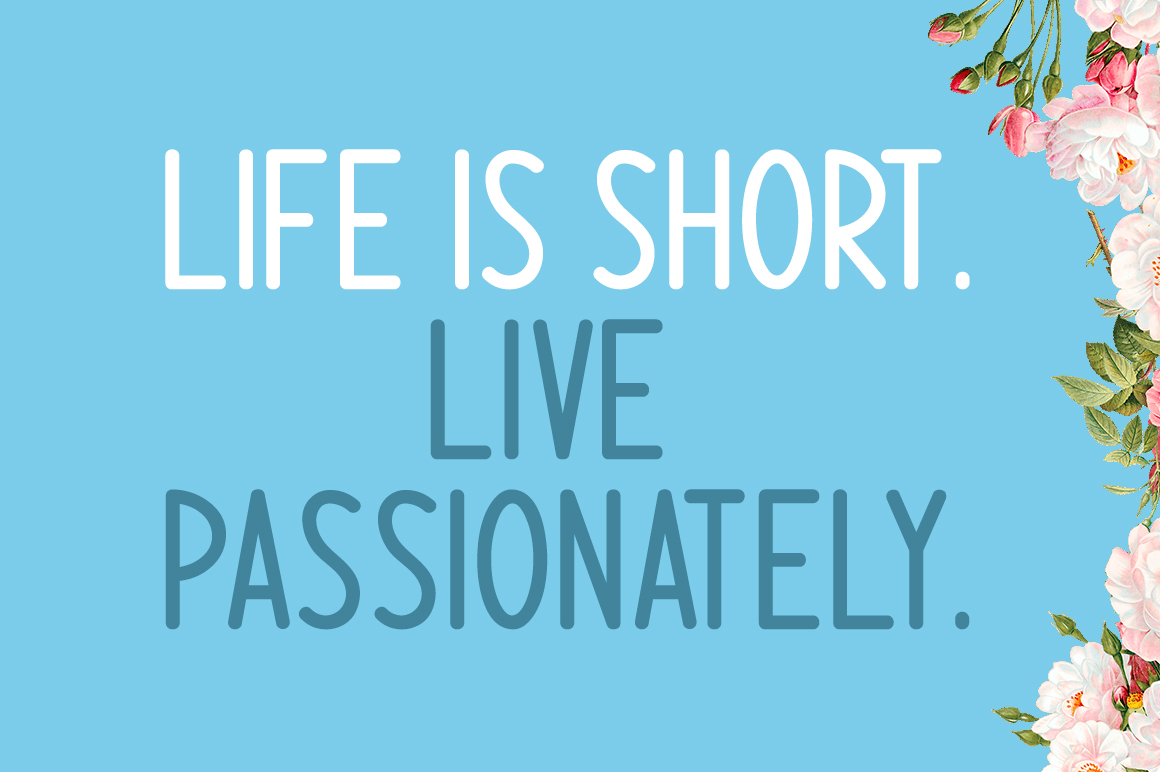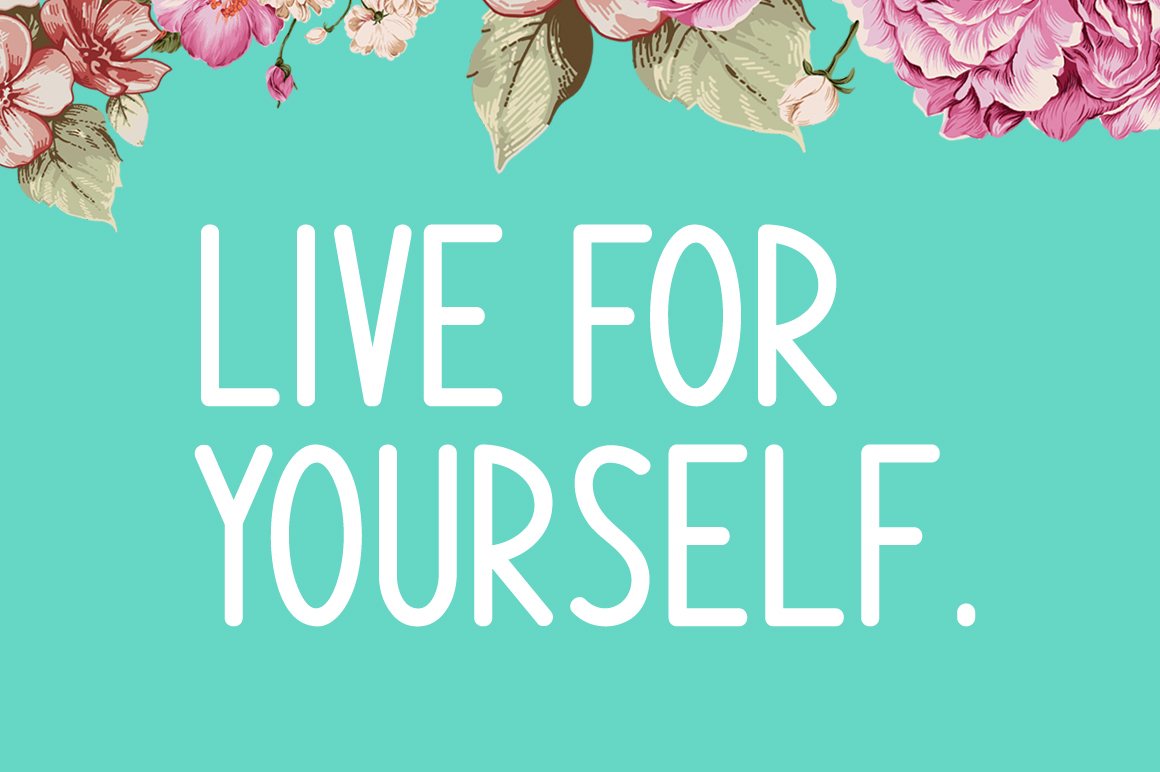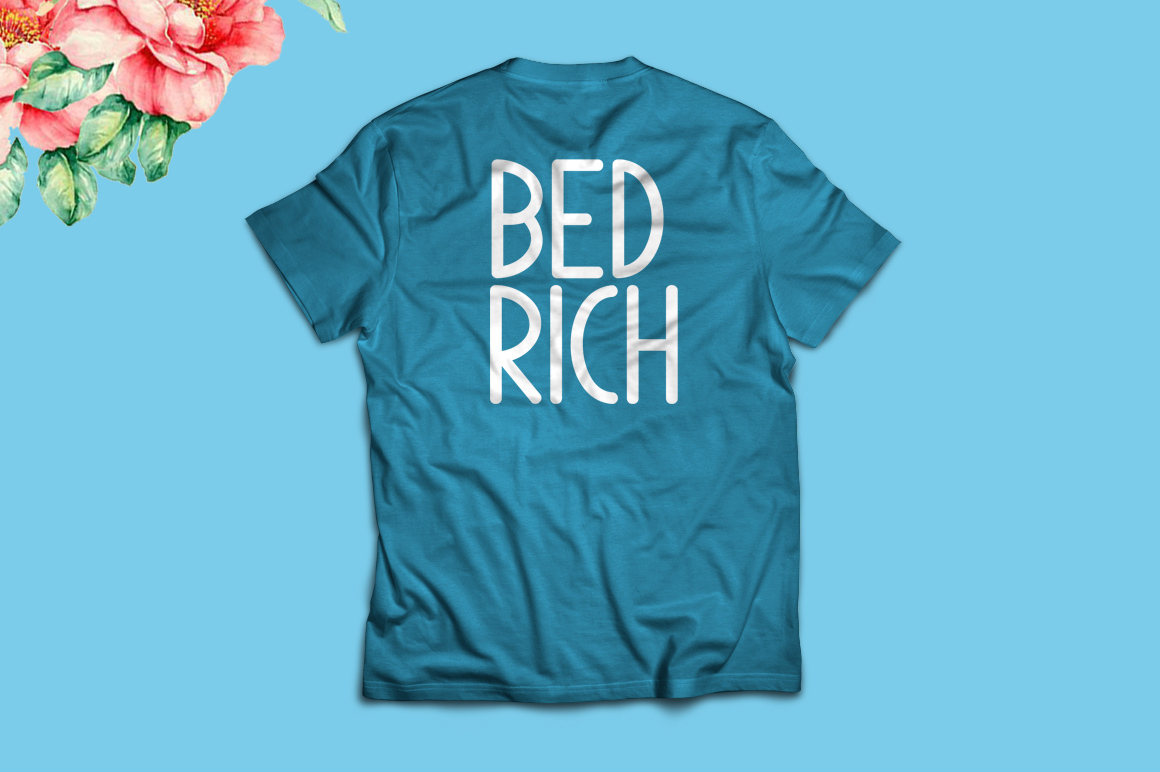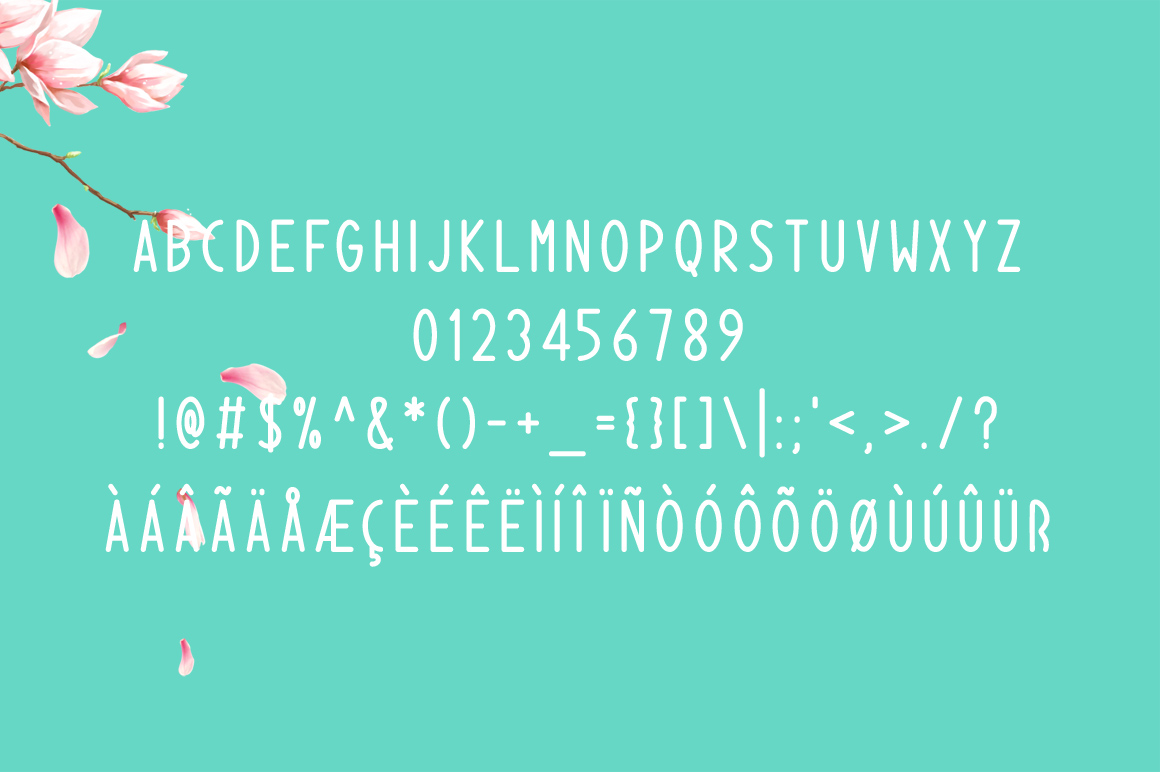
Introducing Bedrich Font: A Simple yet Elegant Typeface
Bedrich is a simple, clean typeface with a smooth exterior, making it an ideal choice for designers and crafters looking for a versatile and elegant font. In this article, we’ll dive into the world of Bedrich Font, exploring its features, benefits, and uses.
The Characteristics of Bedrich Font
Bedrich Font is a sans-serif typeface, characterized by its clean lines, simple shapes, and smooth curves. Its minimalist design makes it perfect for a wide range of applications, from digital media to print materials. The font’s smooth exterior gives it a friendly and approachable feel, making it suitable for use in various contexts, including:
- Headings and titles
- Body text and paragraphs
- Signage and display text
- Digital interfaces and UI elements
The Benefits of Using Bedrich Font
So, why choose Bedrich Font for your design projects? Here are some benefits that make it an attractive option:
- Readability: Bedrich Font is designed to be highly legible, making it easy to read in various sizes and resolutions.
- Versatility: Its simple and clean design allows it to adapt to different styles and contexts, from modern and minimalist to traditional and elegant.
- Flexibility: Bedrich Font comes in various weights and styles, making it suitable for use in a wide range of applications, from body text to headings and titles.
- Uniqueness: While Bedrich Font is simple, it’s not generic or bland. Its smooth exterior and subtle curves give it a distinctive character that sets it apart from other sans-serif fonts.
Design and Crafting Applications
Bedrich Font is an excellent choice for designers and crafters working on various projects, including:
- Branding and Identity: Use Bedrich Font to create a strong and recognizable brand identity, from logos to business cards.
- Web Design: Bedrich Font is perfect for web design, providing a clean and readable experience for users.
- Print Materials: Use Bedrich Font in print materials, such as brochures, flyers, and posters, to create a professional and elegant look.
- Crafting and DIY Projects: Bedrich Font is also suitable for crafting and DIY projects, such as handmade cards, invitations, and signs.
Tips for Using Bedrich Font
To get the most out of Bedrich Font, here are some tips to keep in mind:
- Experiment with weights and styles: Bedrich Font comes in various weights and styles. Experiment with different combinations to find the perfect fit for your project.
- Pair with other fonts: Bedrich Font pairs well with other fonts, including serif and script fonts. Experiment with different pairings to create a unique look.
- Adjust font size and spacing: Adjust the font size and spacing to ensure optimal readability and aesthetics.
Bedrich Font is a simple yet elegant typeface that offers a range of benefits and uses for designers and crafters. Its clean lines, smooth exterior, and versatility make it an excellent choice for various projects, from digital media to print materials. By understanding the characteristics, benefits, and uses of Bedrich Font, you can unlock its full potential and create stunning designs that showcase your creativity.